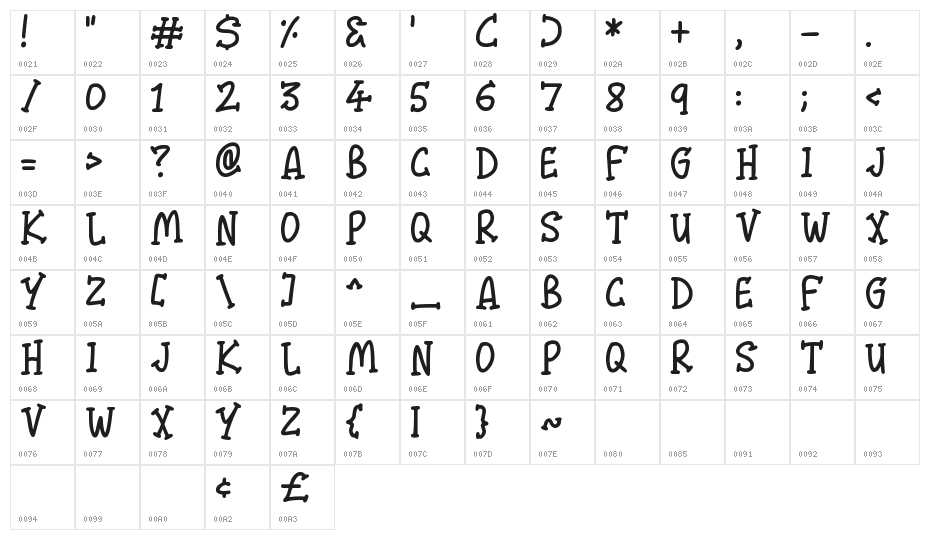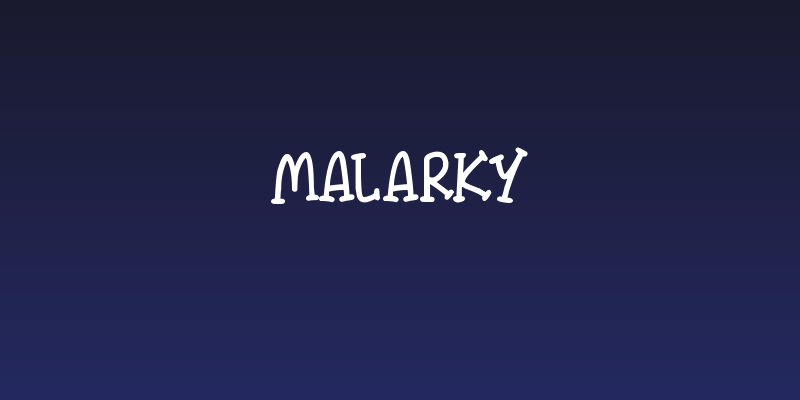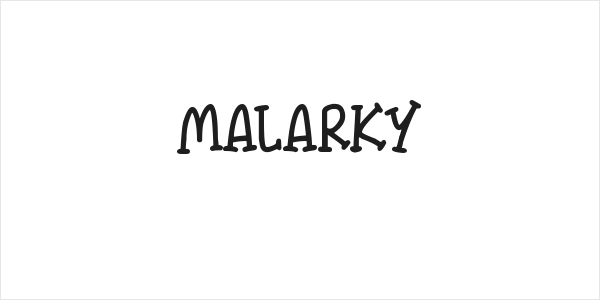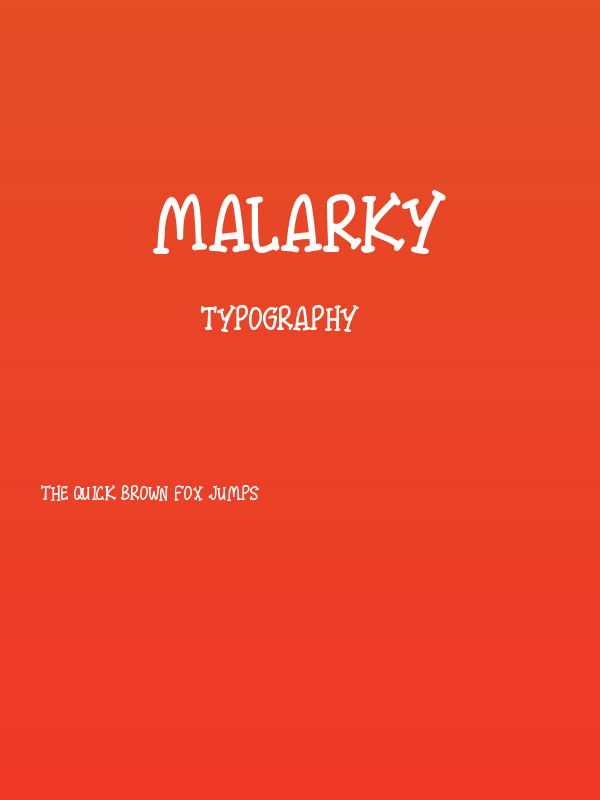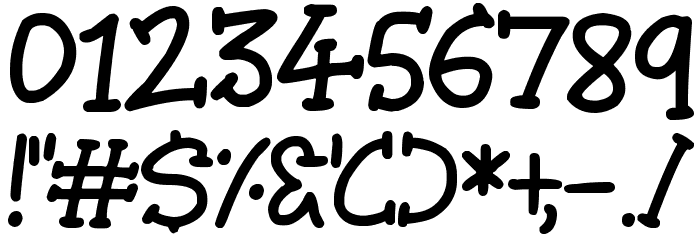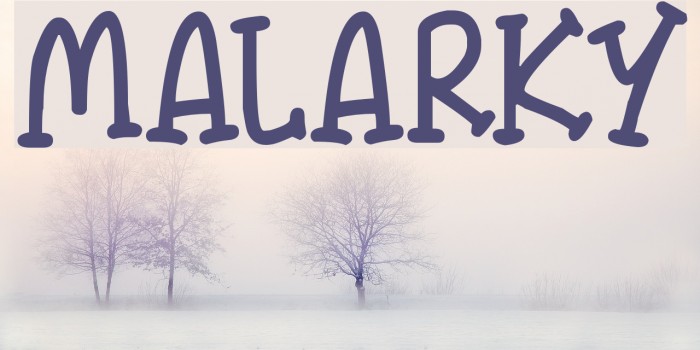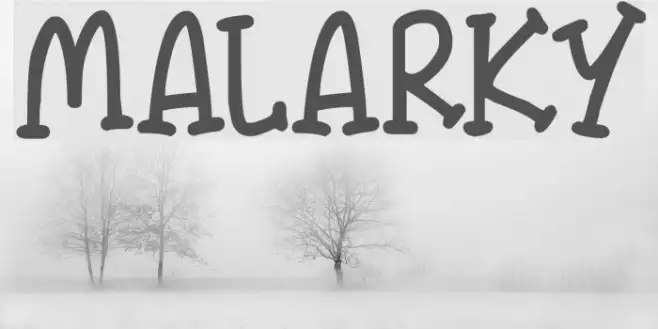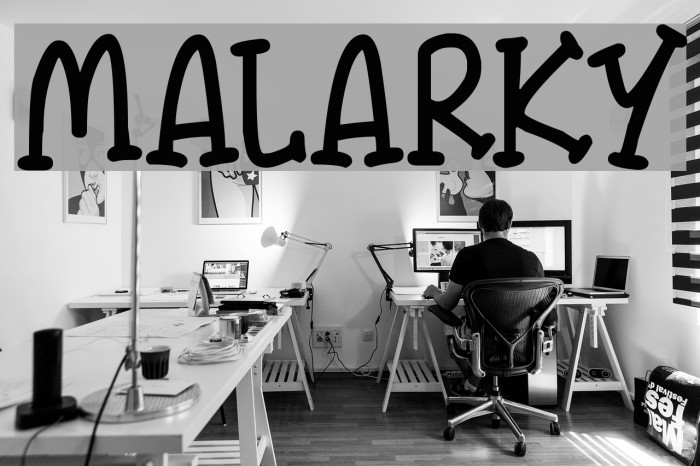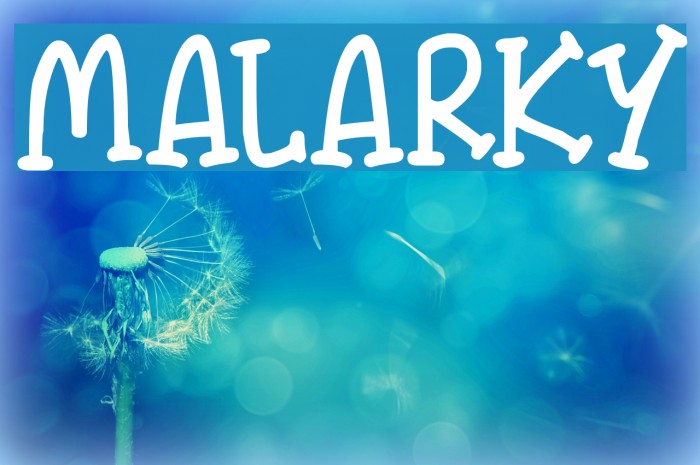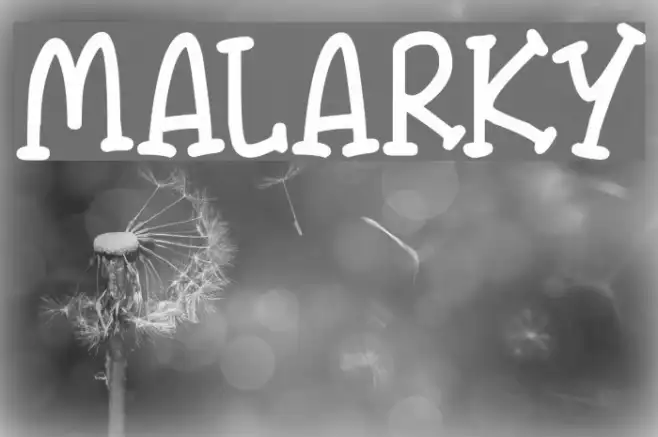
Malarky Font
Malarky Description
This playful and whimsical font features a handwritten style with a casual, friendly appearance. The characters are bold and slightly irregular, giving them a lively and dynamic feel. The strokes are thick and rounded, contributing to a sense of approachability and fun. Each letter has a unique personality, with slight variations in height and width that add to the overall charm. The numerals and special characters maintain the same playful aesthetic, ensuring consistency across all text elements. This font is well-suited for projects that require a touch of humor and creativity.
| Overall Style | Playful, Whimsical |
| Proposed Projects | Ideal for children's books, playful branding, casual invitations, and creative posters. |